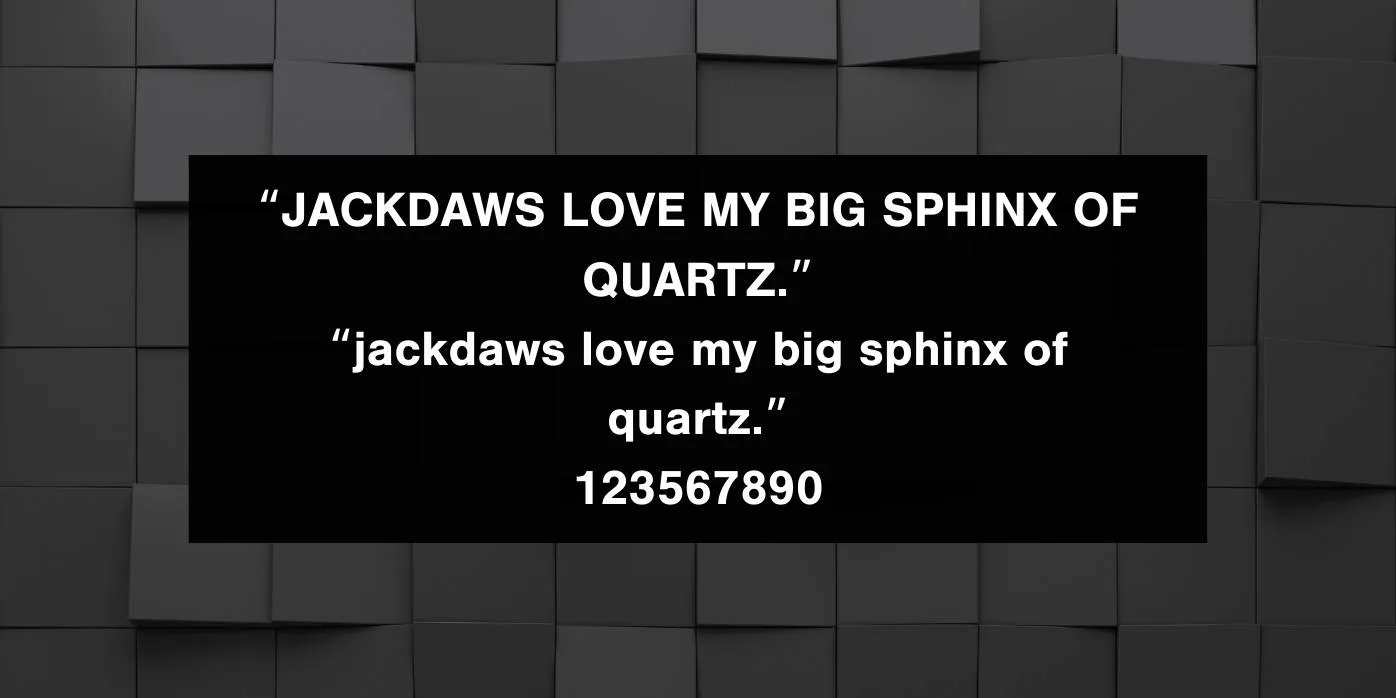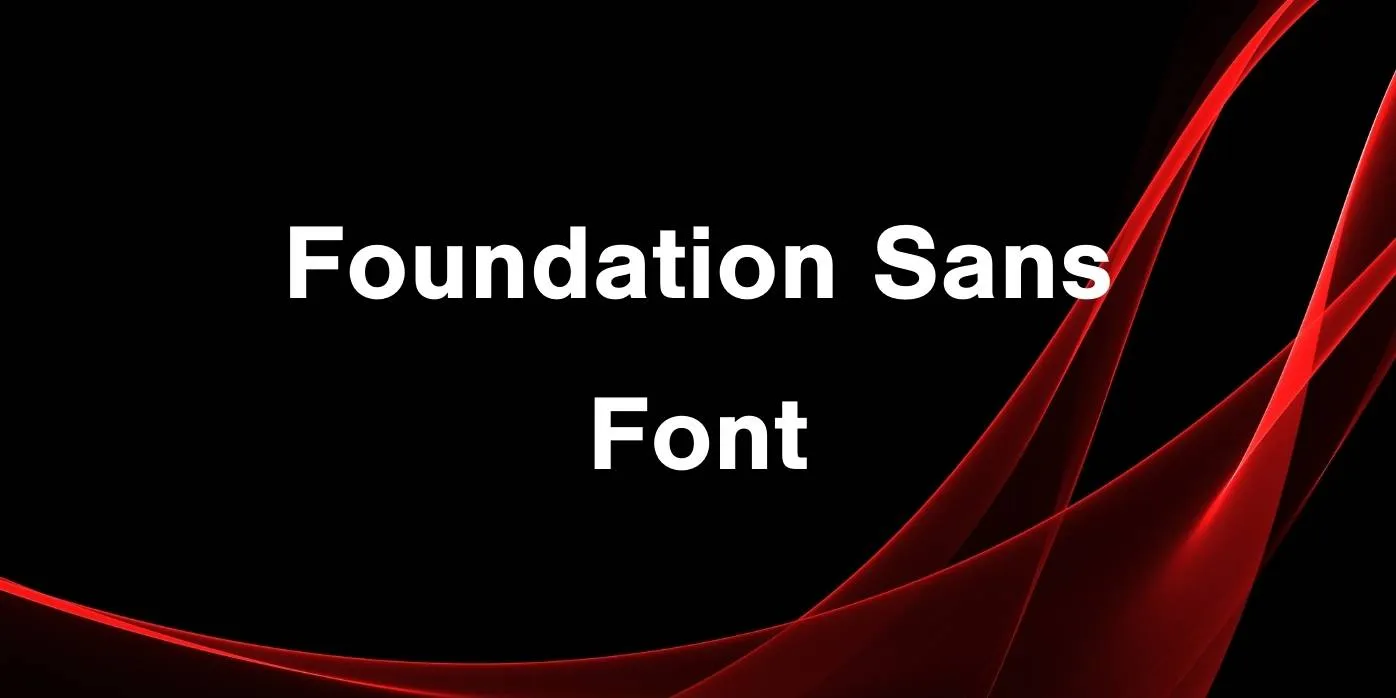
Foundation Sans Font
Foundation Sans Font is a sans-serif typeface designed by Paul Hunt and released through Adobe. This font is available in seven weights—extra light, light, regular, medium, semibold, bold, and black—each with matching italics as well as small caps styles. It was commissioned by Adobe Systems as the headline font for their Creative Suite 2.0 software release. The glyph of this font has clean lines and sharp corners which give this font a very modern look.
The lowercase letters are very tall in comparison to the uppercase letters, giving the text a strong vertical rhythm. This is a great choice for any project that needs a sans-serif with a bit of personality. For making something very special and unusual you can try to pair the typeface style with serendipity Font and can take a chance to get people’s attraction.